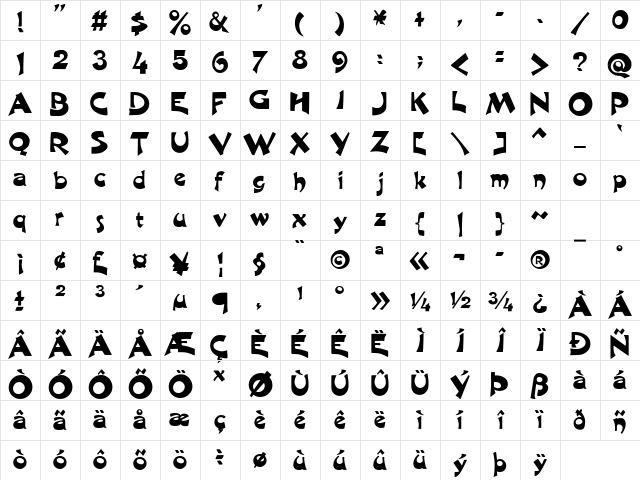
Excalibur Logotype Normal Free Font
Excalibur Logotype Normal
Design Context for Excalibur Logotype
Excalibur Logotype is a composed and adaptable typeface that performs quietly and consistently across a wide range of design contexts.